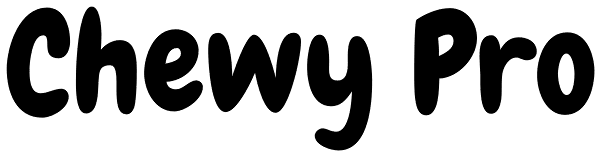
Chewy Pro
Finally. A font you can really sink your teeth into. And unlike all those tasteless fonts, Chewy never loses its flavor! Chewy is sealed for freshness in an easy-open package. Be sure to sample Squid's other main courses and side dishes! The Pro...